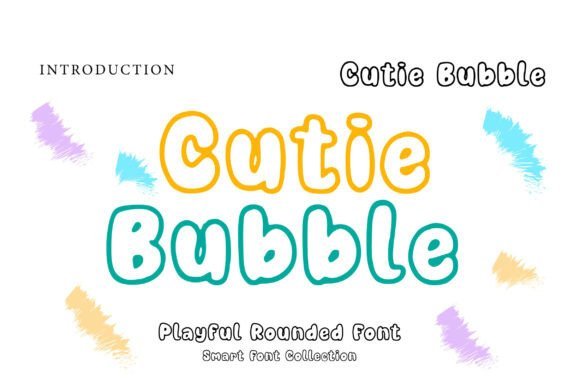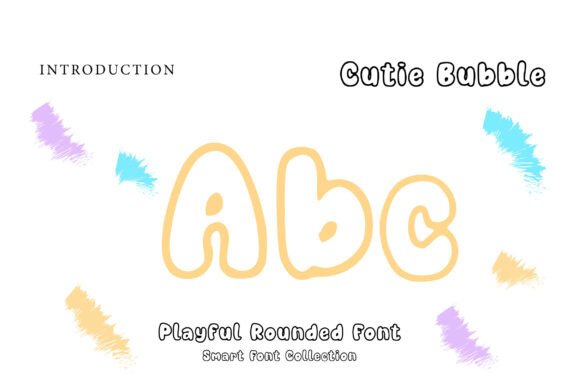
Adding a Touch of Whimsy with the Cutie Bubble Font
Do you remember the excitement of opening a box of crayons as a child and discovering a brand new set of vibrant colors to play with? The joy of creating something new and bringing your imagination to life is a feeling that never fades. As a designer, you’re always on the lookout for ways to tap into that same sense of wonder and magic in your work.
That’s where the Cutie Bubble Font comes in – a delightful display font that’s designed to add a touch of playfulness and whimsy to any project. With its soft rounded shapes and clean outline style, this font is perfect for creating a fun and inviting atmosphere that’s sure to delight kids and adults alike. Whether you’re designing stickers, party invitations, or social media graphics, the Cutie Bubble Font is a valuable addition to any designer’s toolkit.
Cutie Bubble Font Key Features
- Font Family: Cutie Bubble is a unique, hand-drawn font with a bubble-like design, perfect for creating playful and whimsical text.
- Unique Characteristics: The font features a distinctive bubble-like design, with rounded edges and a soft, hand-drawn feel, adding a touch of whimsy and personality to any text.
Designer Review: Cutie Bubble Font
Overall, I think the Cutie Bubble Font is a fun and playful choice for designs where you want to add a touch of whimsy. ✨ The font is well-designed, with each letter carefully crafted to create a bubble-like effect that’s both cute and charming.
- The font is highly customizable, allowing you to adjust the size, color, and spacing to suit your design needs.
- The bubble effect is consistent throughout the font, making it easy to use and predict how the text will look.
- The font is relatively lightweight, making it a great choice for web and mobile designs where file size is a concern.
- The font may not be suitable for formal or professional designs, as it can come across as too playful or childish.
- The bubble effect can sometimes make the text difficult to read, especially at smaller sizes or when used in long blocks of text.
- The font may not be as versatile as some other options, and may not work well in all design contexts.
Overall, I think the Cutie Bubble Font is a great choice for designers who want to add a touch of fun and personality to their designs. While it may have some limitations, it’s a well-designed font that’s sure to bring a smile to your users’ faces.
Practical Application Guide for Cutie Bubble Font
Use Cutie Bubble Font for creating playful and whimsical designs, such as children’s party invitations, social media graphics, and product packaging.
Experiment with different font sizes and colors to create visual interest and emphasis.
Combine Cutie Bubble Font with other playful fonts or graphics to create a cohesive and engaging design.